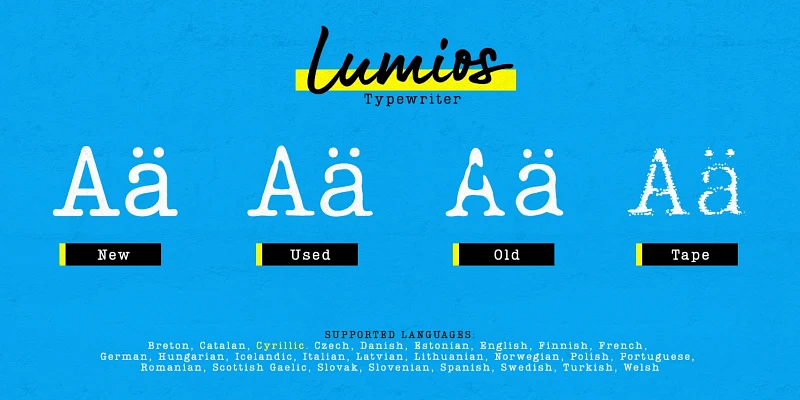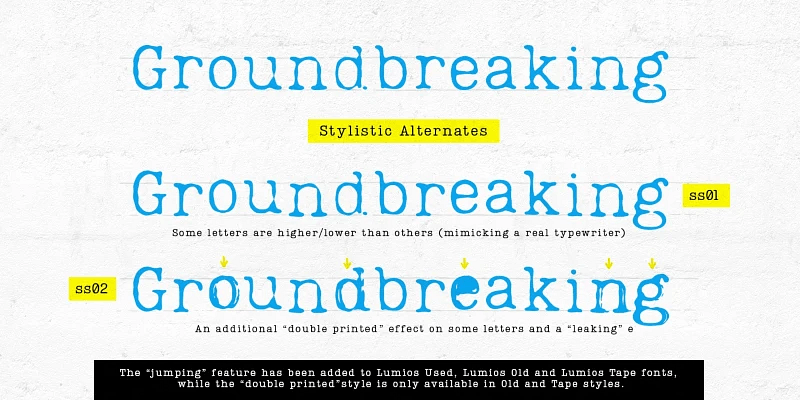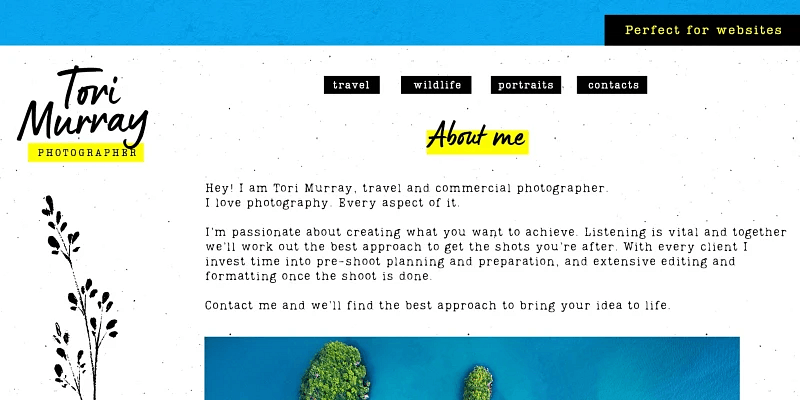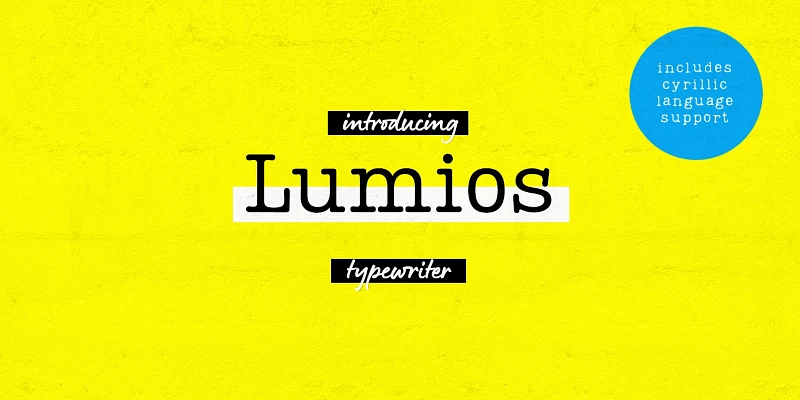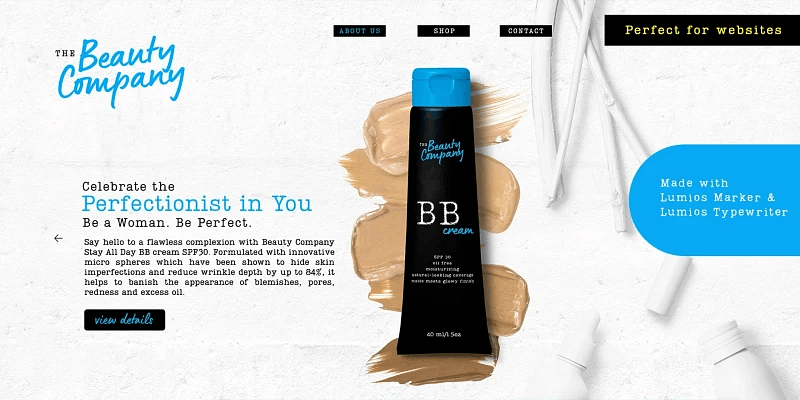
“Lumios Typewriter is a distinctive slab serif font in the Lumios family. It was inspired by various details found in old typewritten letters. There are 4 unique styles: New, Used, Old, and texturized Tape. Different effects and stylistic alternates further enhance the achievable realistic look with these multilingual (Latin and basic Cyrillic) fonts. Lumios Marker is a great choice for websites, packaging, editorial, branding, posters, greeting cards, and billboards.